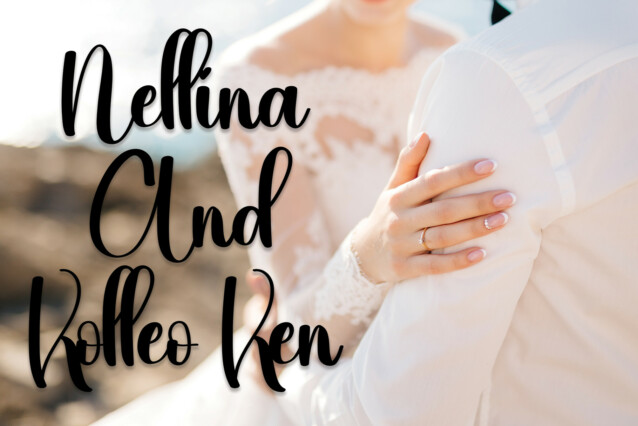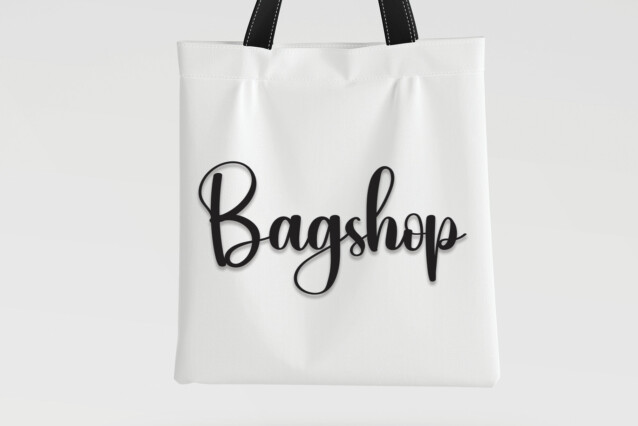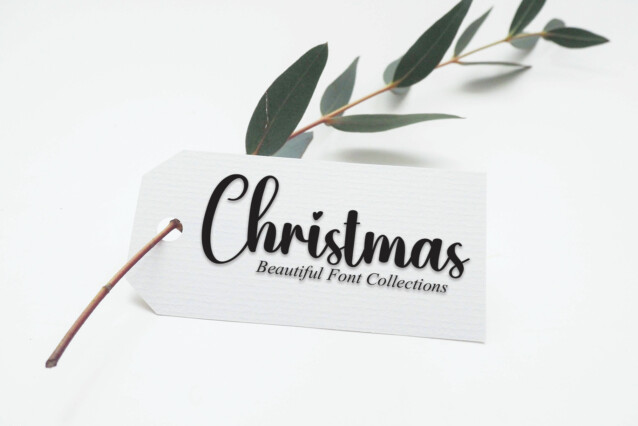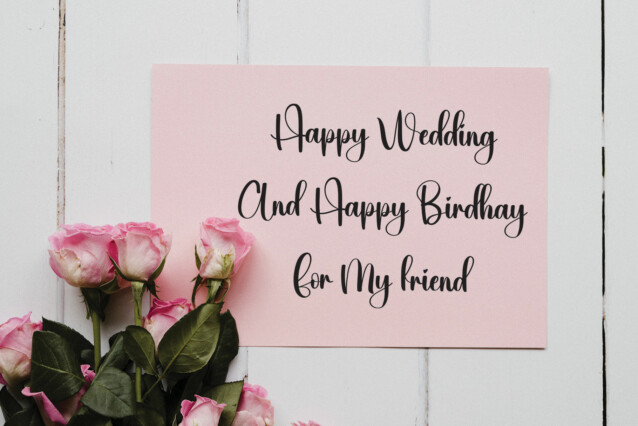
Hear Script Font
Hear Script Font is a modern handwritten font. Its latest style letters are perfect for wall displays, wedding invitations, social media post logos, advertisements, product packaging, product designs, labels, photography, watermarks, invitations, stationery, and any project that requires handwritten typography.